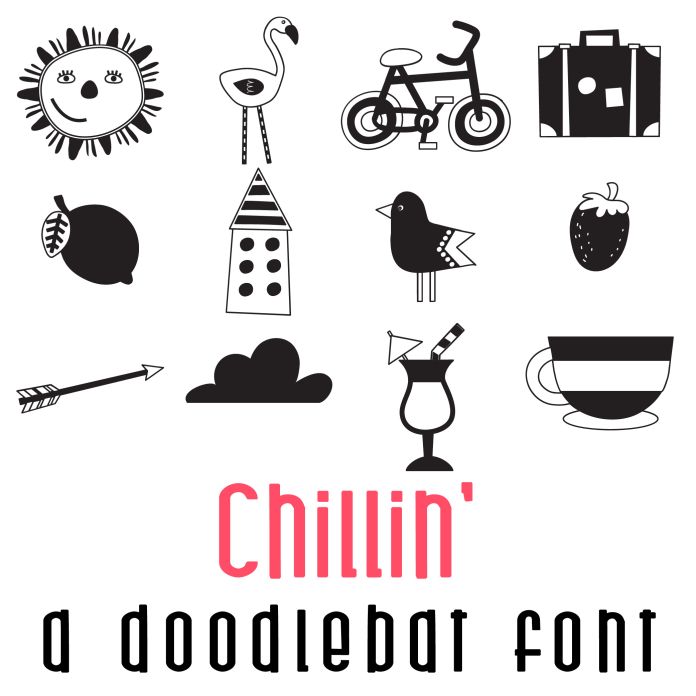
This fun doodlebat font features 26 different vacation, travel and summer images, perfect for cards, crafts, gifts, decor, scrapbook pages, planner stickers, and more!